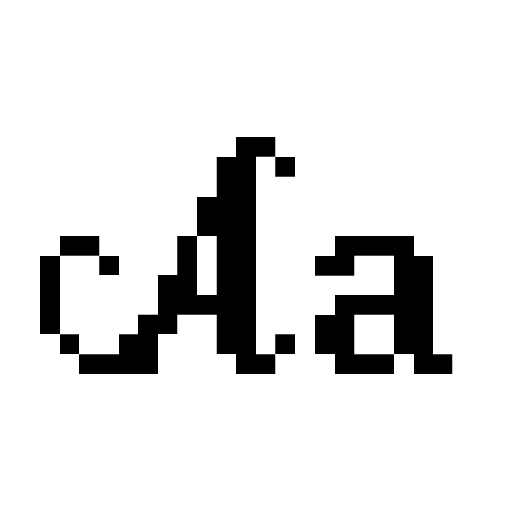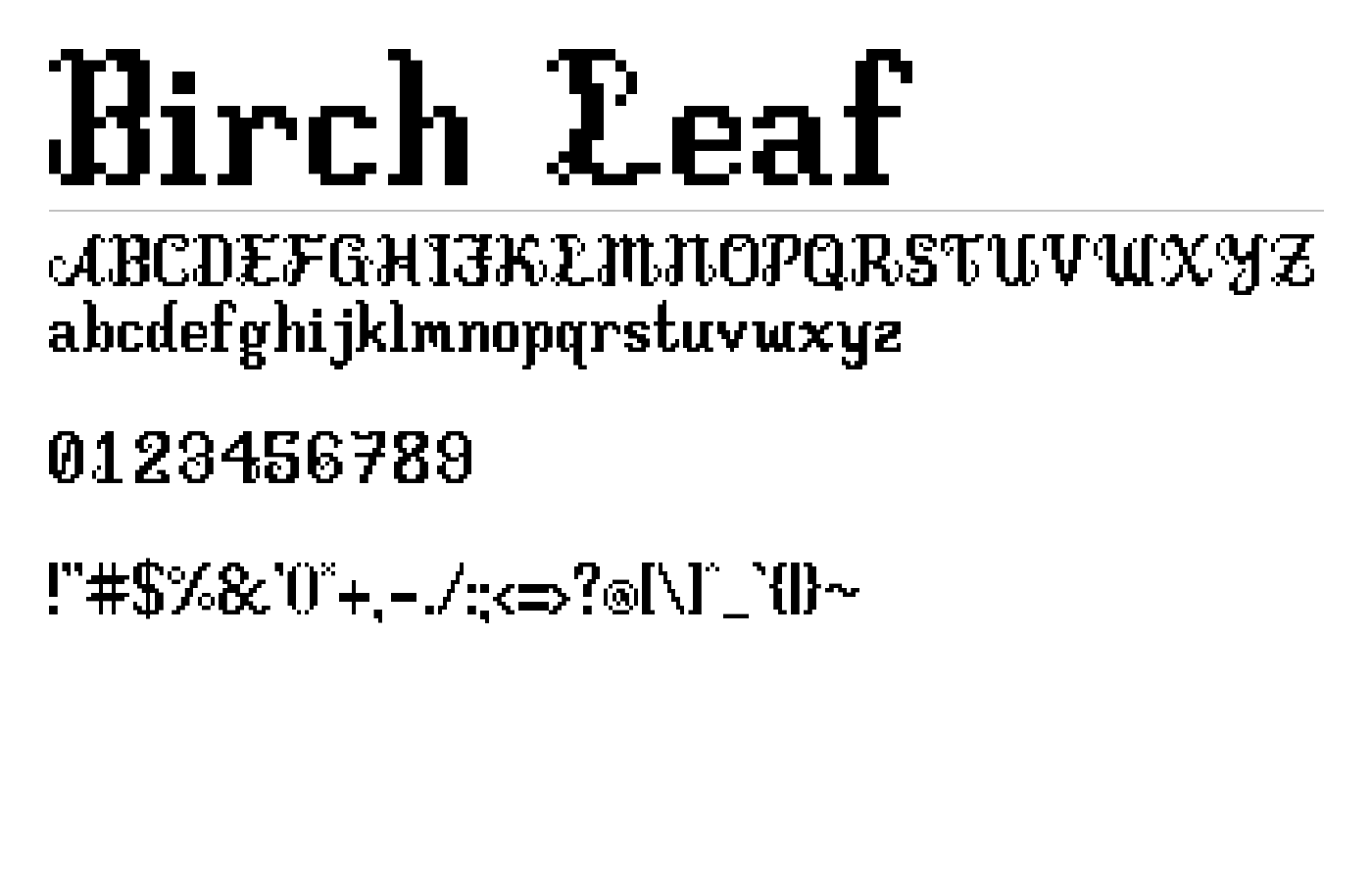
Birch Leaf is a distinctive serif font featuring a pixelated, blocky design that evokes a vintage digital or early computer aesthetic. Its bold weight and condensed style, combined with sharp, jagged edges on both uppercase and lowercase letters, give it a unique, retro-futuristic charm perfect for eye-catching headlines, tech-themed branding, and creative posters. This font works well where a nostalgic yet modern vibe is desired, balancing old-school digital pixel art with classic serif structure for a playful but structured look.
Birch Leaf Font
About Birch Leaf Font